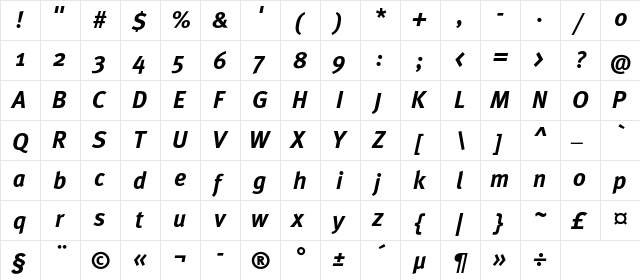
MetaBoldC Italic Font Preview
Design Context for MetaBoldC Typeface
MetaBoldC takes a measured approach to typography — its balanced proportions and neutral character make it a reliable workhorse for both digital and print work. The dynamic lean of this cut emphasises speed and emphasis in any layout. Its bold stroke weight gives it real presence on the page.
Pro Tip: Try MetaBoldC for annotation and caption copy alongside an upright companion — the contrast in angle creates a dynamic but ordered typographic system.